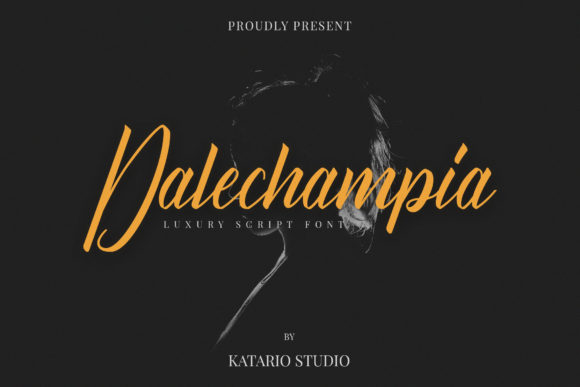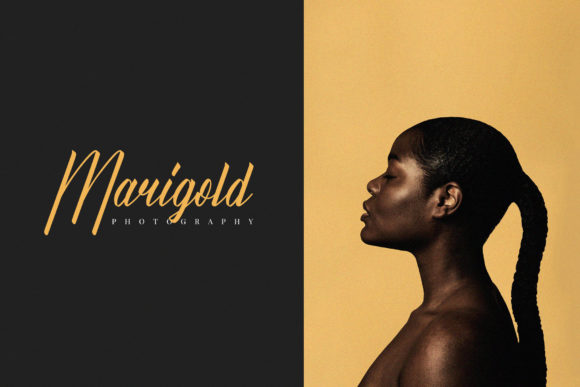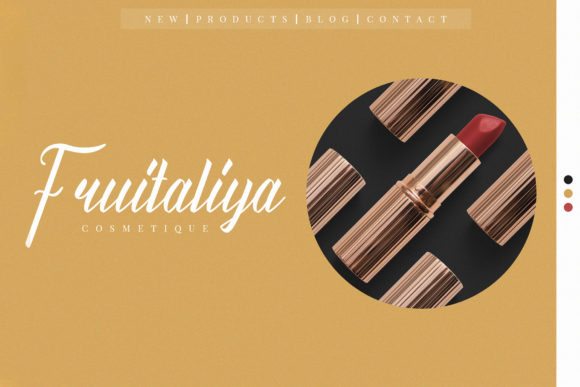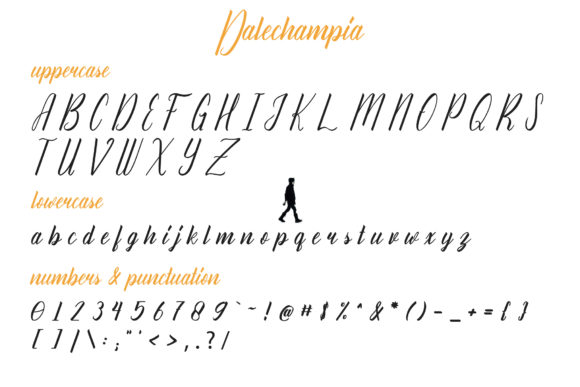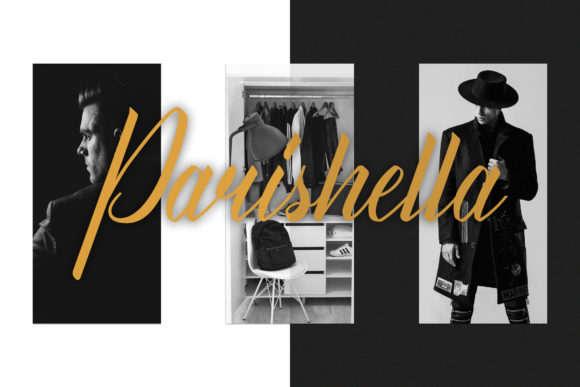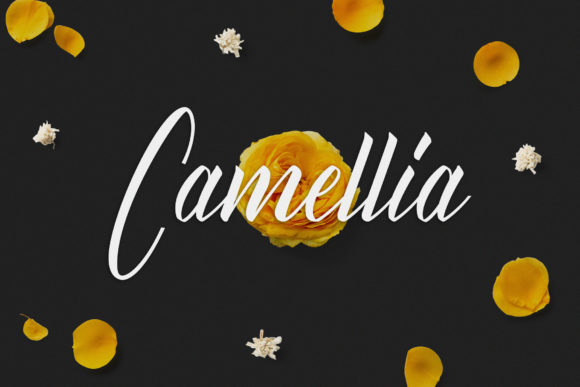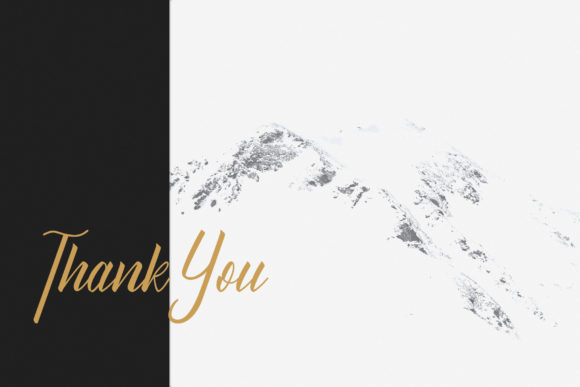
HomeScript FontsDalechampia Font Script Fonts Dalechampia Font FacebookXPinterestWhatsApp Dalechampia Font Poster 2 Dalechampia Font Poster 3 Dalechampia Font Poster 4 Dalechampia Font Poster 5 Dalechampia Font Poster 6 Dalechampia Font Poster 7 About Dalechampia Font Dalechampia is a luxurious handwritten font. Get inspired by its elegant style! DOWNLOAD ON CREATIVE FABRICAThis font is sold and delivered by Creative Fabrica. Font Canyon may earn a commission if you buy through this link. People also explored Melodie Font Aquilegia Font Garden Mersink Font Delicate Font Quintella Font Flower Doodle Dingbat Font Mahameru Font Schramberg Font Maventurst Font 286 0 TagsDalechampia Font Previous articleKondoraz FontNext articleThe Duality Font LEAVE A REPLY Cancel reply Comment: Please enter your comment! Name:* Please enter your name here Email:* You have entered an incorrect email address! Please enter your email address here Website: Save my name, email, and website in this browser for the next time I comment. Personal Use Free Mandarins Personal Use Free Read more about this font Ciggs Personal Use Free Read more about this font Makeba Font Personal Use Free Read more about this font Masker Area Personal Use Free Read more about this font BLOG 5 Fonts That Will Dominate Design Trends in 2026 5 Fonts for 2026 That Will Dominate Design Trends Typography plays a critical role in visual communication, and as we look ahead to 2026, it’s... How to Cut Any Font on Cricut: Convert a Font to SVG (Free) Best Fonts for YouTube Videos: Make Your Thumbnails Stand Out Free Fonts Risk: Why Free Fonts Can Be Dangerous for Designers